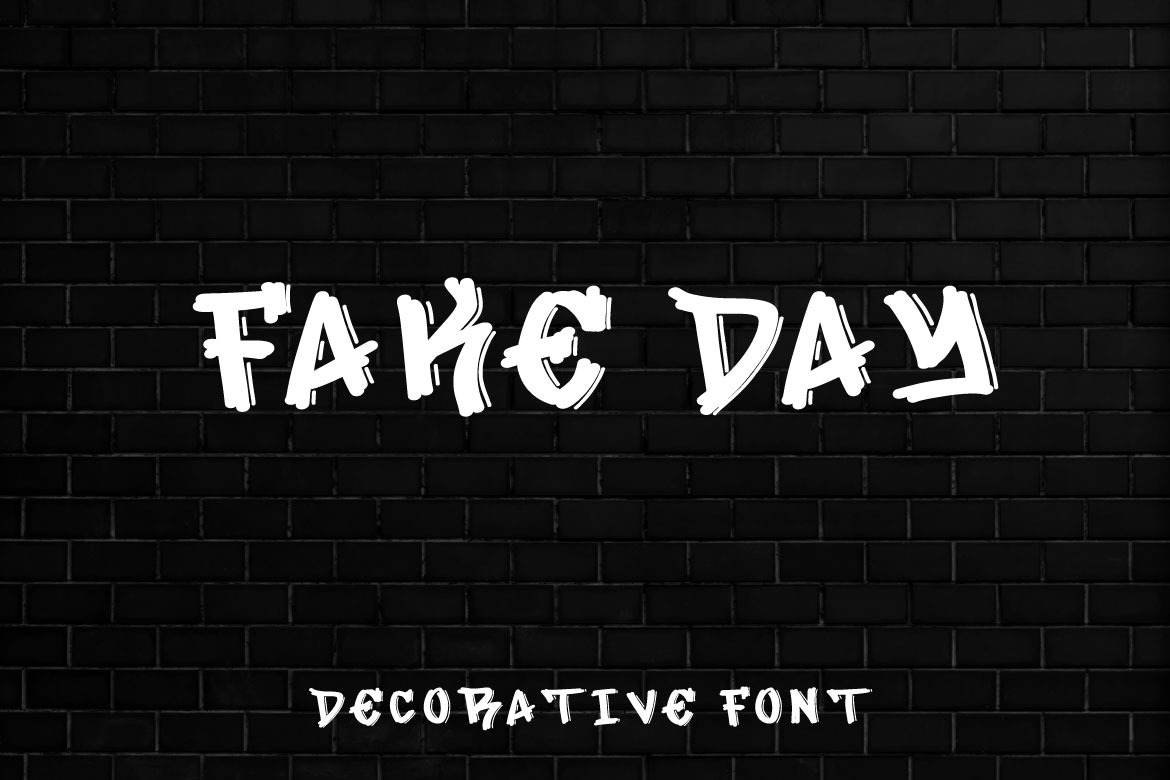
Fake Day - Graffiti Font
Fake Day is a graffiti typefaces that emulates the artistic and expressive style of graffiti writing found in urban environments. This font is characterized by bold, dynamic, and chaotic letterforms that draw inspiration from street art and spray-painted graffiti.
Fake Day capture the energy and rebellious spirit associated with graffiti culture. Whether to used in graphic design, street art projects, and other creative endeavors where a bold and edgy typographic style is desired. We're proud and honored if Fake Day can be the part of your special projects. Thank you :)